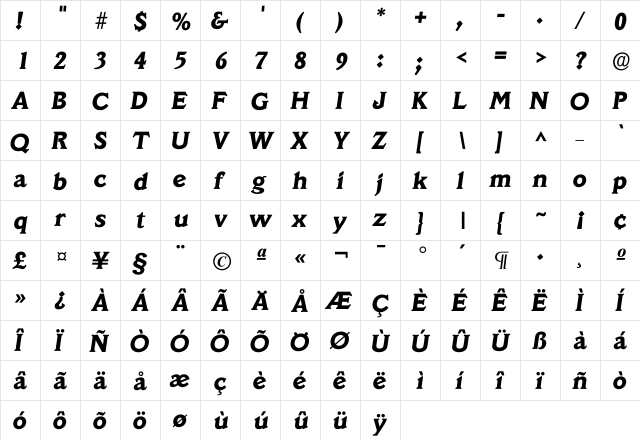
Iveracruz Bold
Design Context for Iveracruz Typeface
Iveracruz takes a measured approach to typography — its balanced proportions and neutral character make it a reliable workhorse for both digital and print work. The heavy weight commands attention and anchors typographic hierarchies.